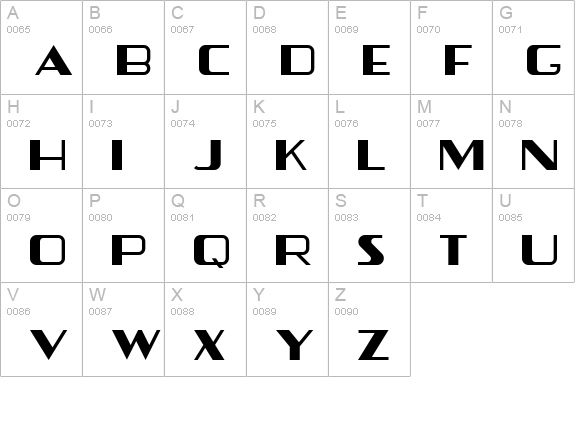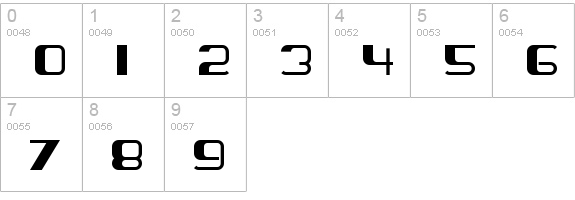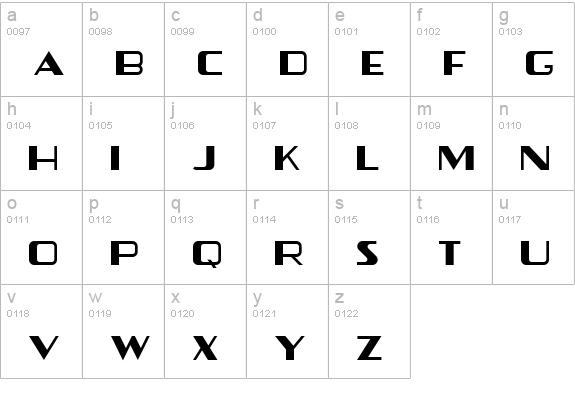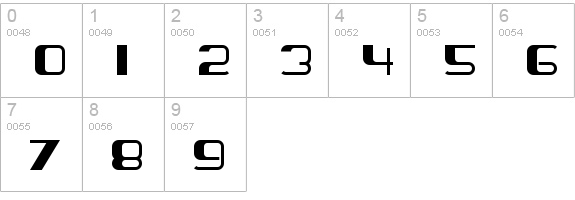
ZephyrPioneer Font Details
ZephyrPioneer font is a versatile and modern typeface that exudes elegance and sophistication. With its sleek lines and contemporary aesthetic, ZephyrPioneer is perfect for a wide range of design projects, from branding to editorial design. This font strikes the perfect balance between professionalism and creativity, making it suitable for both corporate and artistic endeavors. What sets ZephyrPioneer font apart is its unique blend of classic elegance and modern flair. Its clean and well-defined letterforms make it highly legible, while its stylish curves and angles add a touch of personality. Whether used for headlines, body text, or branding elements, ZephyrPioneer font is sure to make a statement. Best of all, ZephyrPioneer font is available for free download at FontsMarket.com. This means you can easily add this stylish and versatile typeface to your font library without any cost. Don't miss out on the opportunity to elevate your designs with the timeless charm of ZephyrPioneer font - download it today and let your creativity soar!